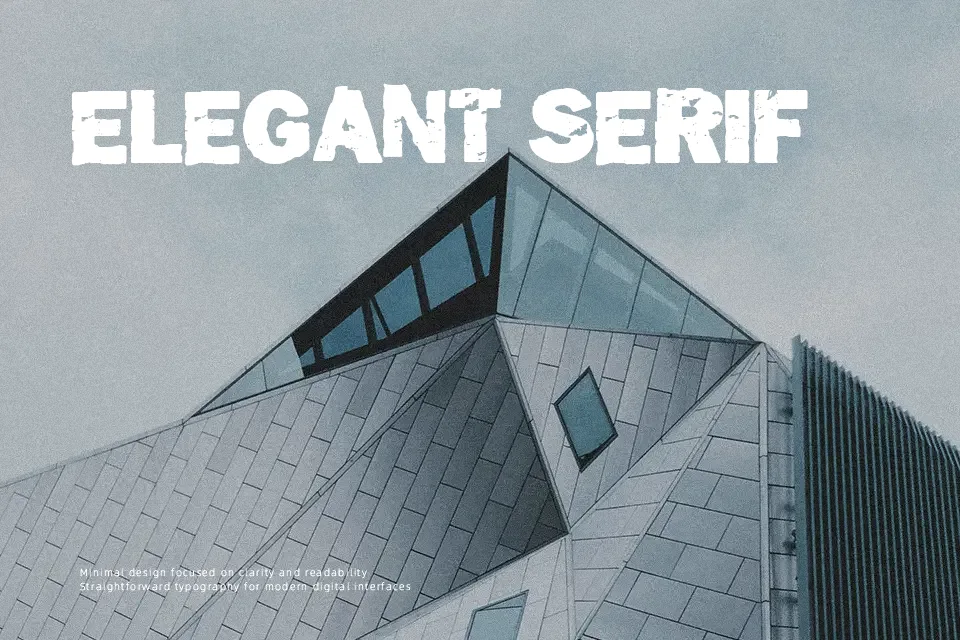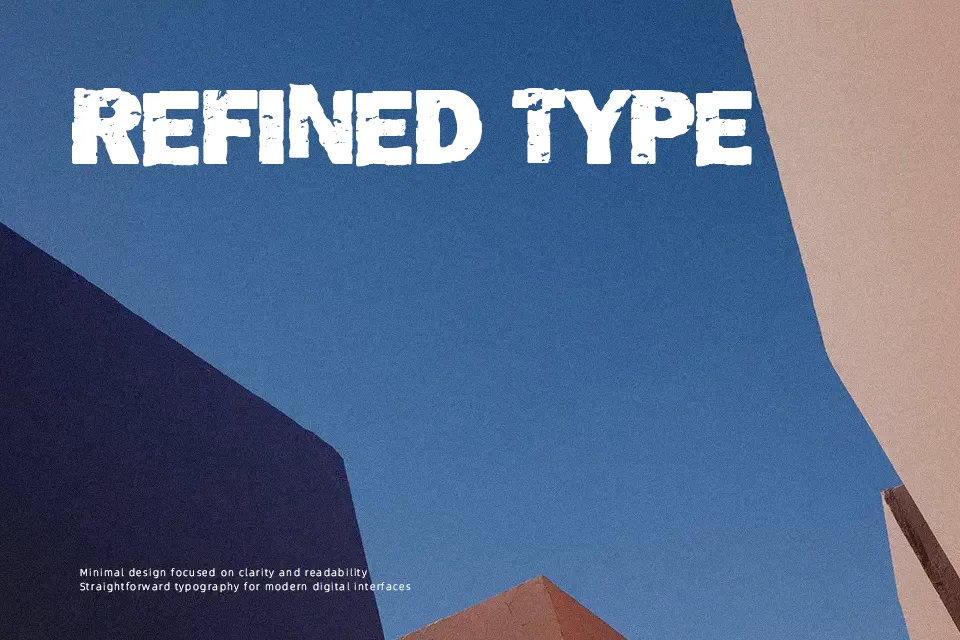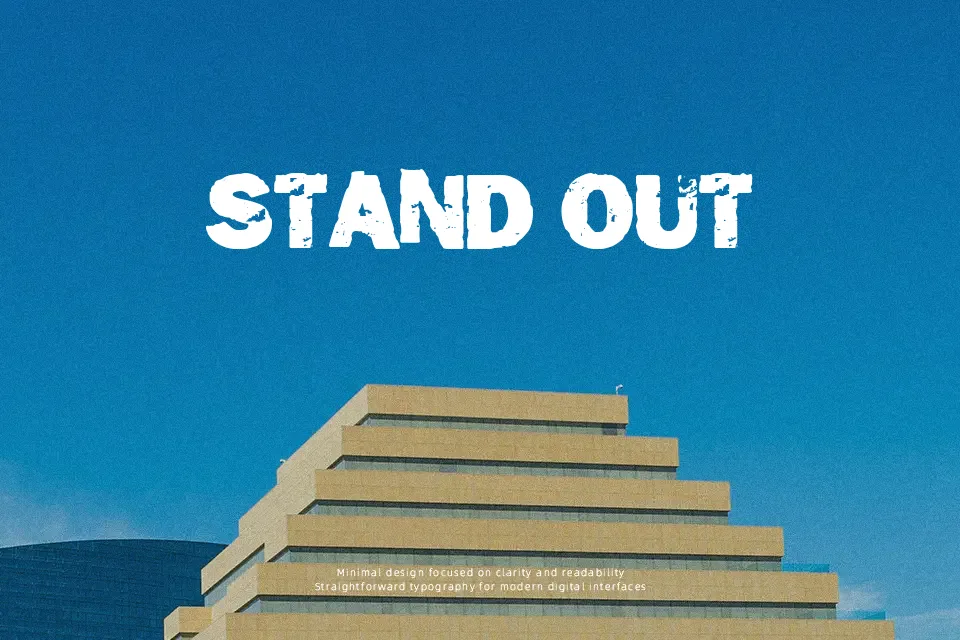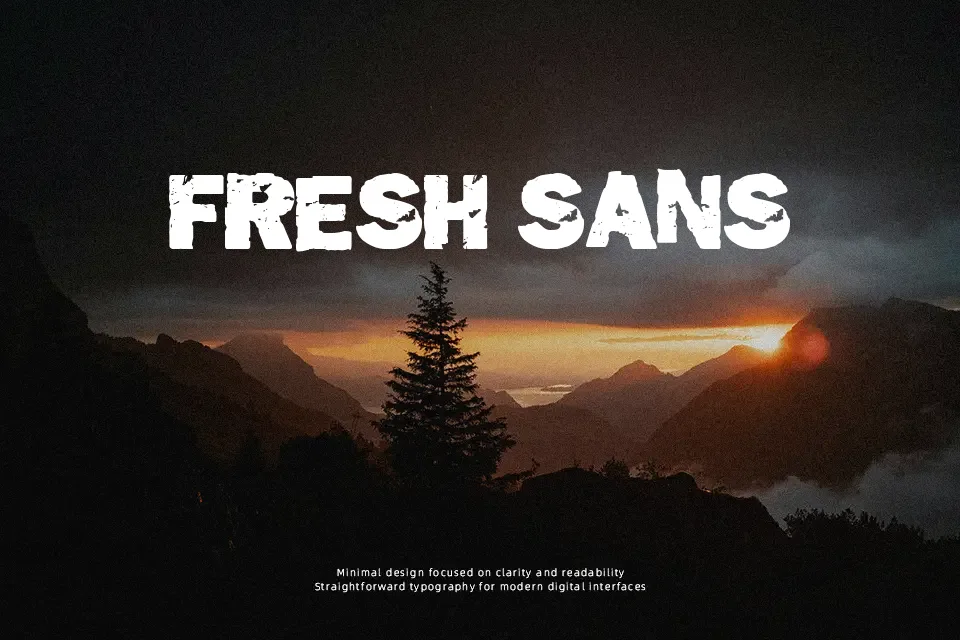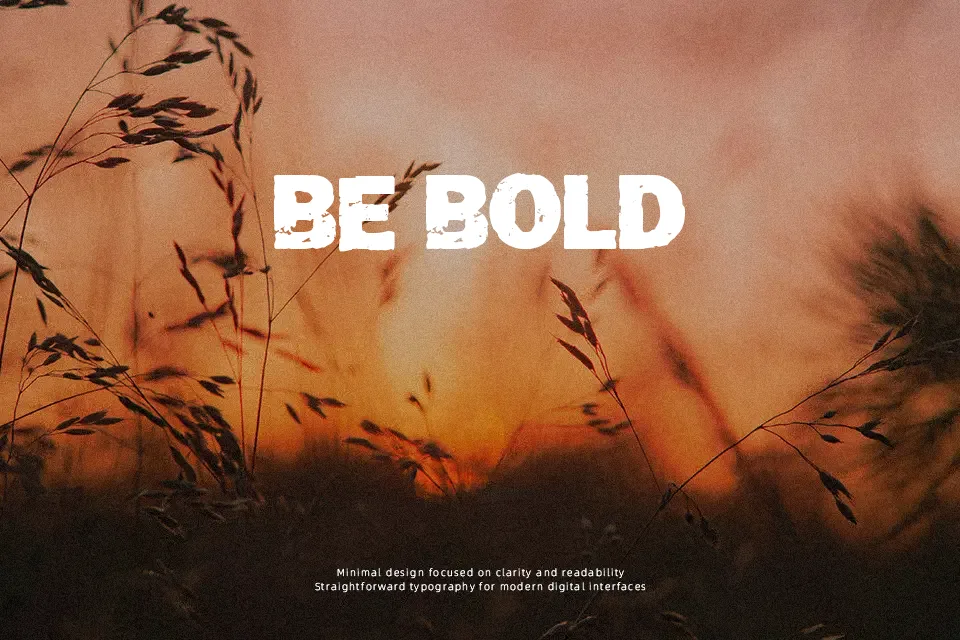
The Camposanto Font
The Camposanto Font establishes an aggressive display presence defined by heavy vertical stems, fragmented contours, and heavily weathered distress patterns running throughout each glyph. Wide proportions and compact character spacing create dense, punchy titles that hold together well across oversized layouts. However, the irregular jagged edges and eroded inner counters compromise definition whenever the typeface drops down to body text sizes. For large-format titles that require a gritty, aged appearance, the design supplies immediate visual grit without sacrificing basic letter recognition in short lines.
Best For: horror movie posters, metal band merchandise, halloween event banners, rugged apparel graphics
Not Ideal For: continuous reading passages, corporate identity manuals, mobile user interfaces, small product labels
Perfect for branding, halloween, and headline, with a dark and decorative style.